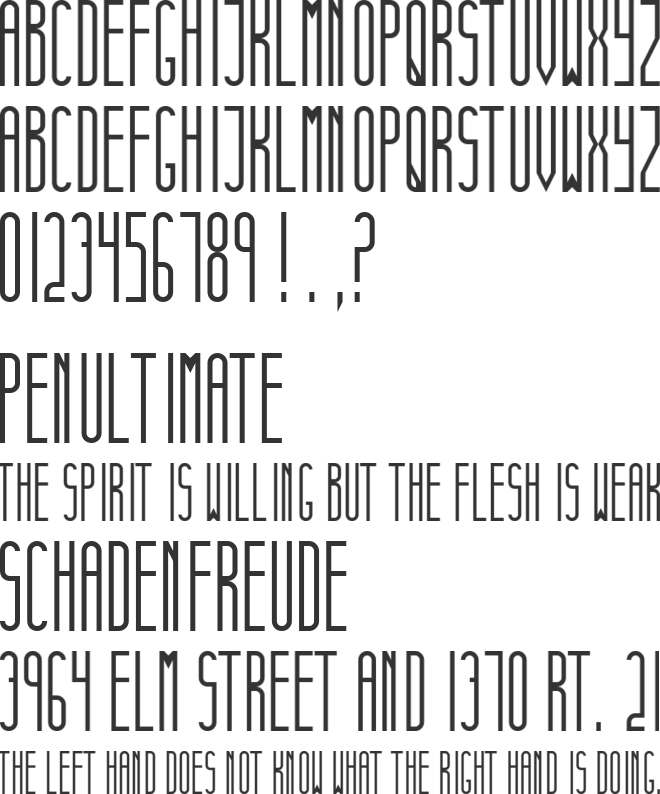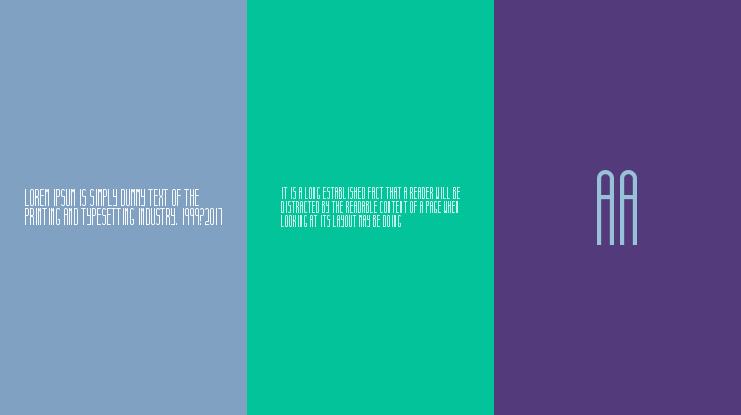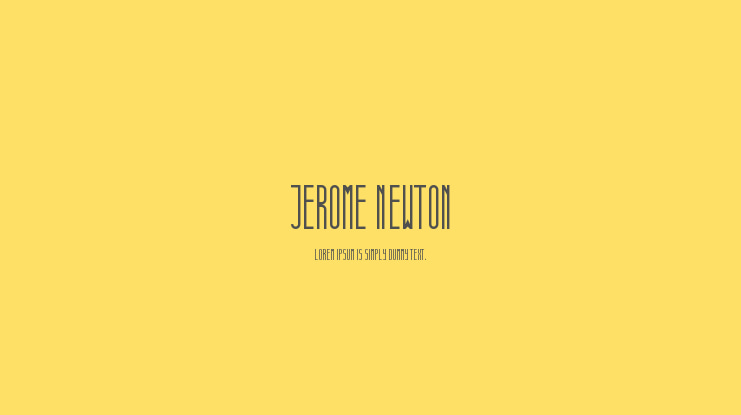
Jerome Newton Font
candycoatedkafka
Named after David Bowie's character in The Man Who Fell to Earth, Jerome Newton is a typeface designed to give a bit of that 70's sci-fi flair with a flavor of 8-bit graphics.